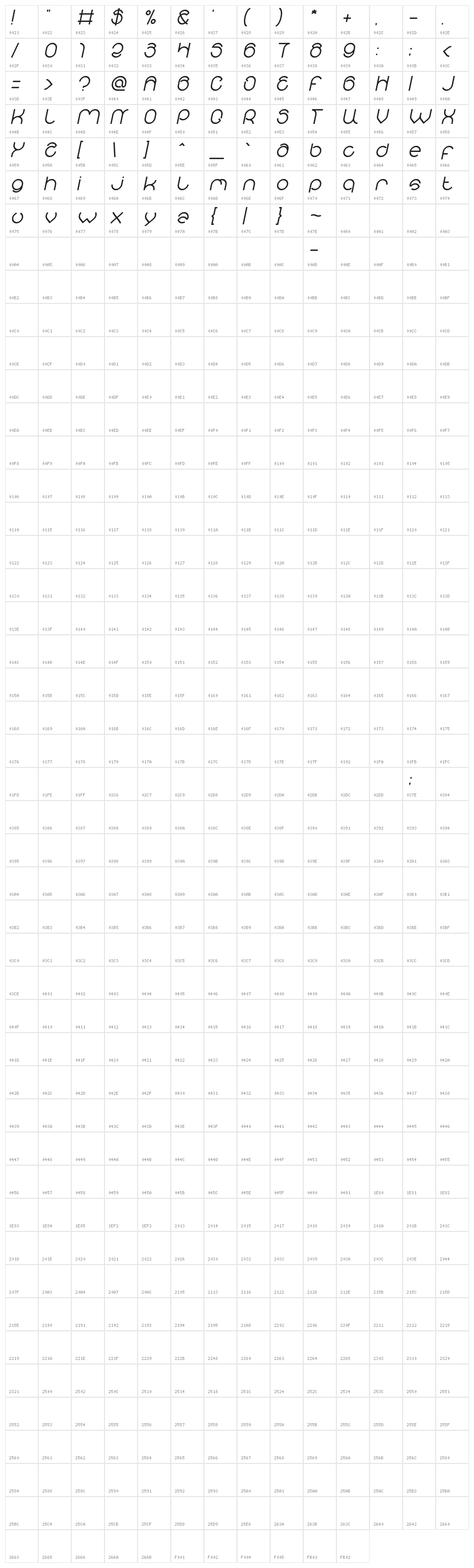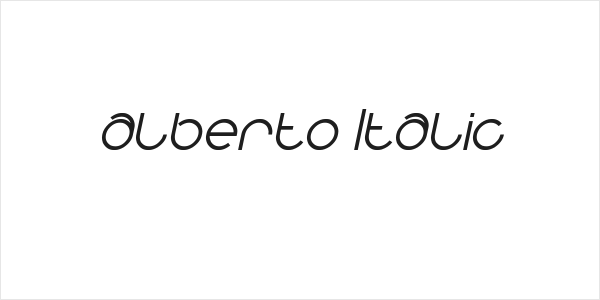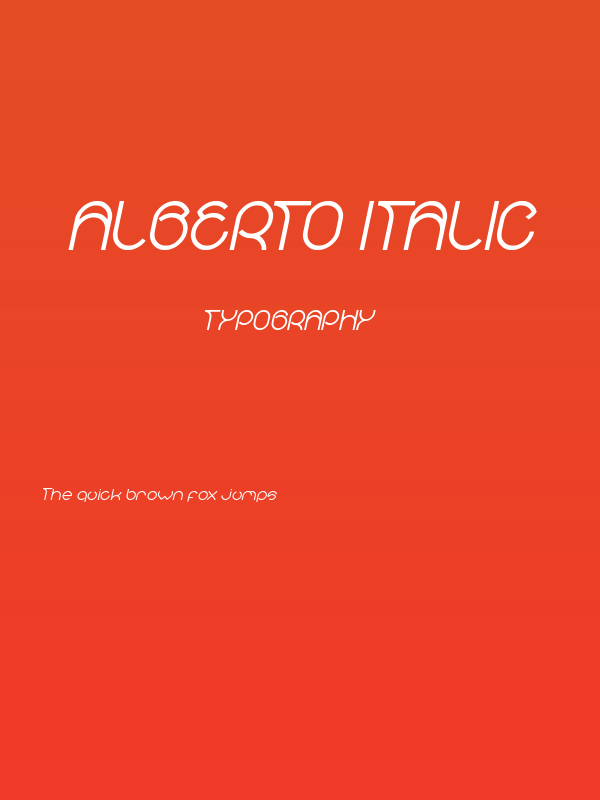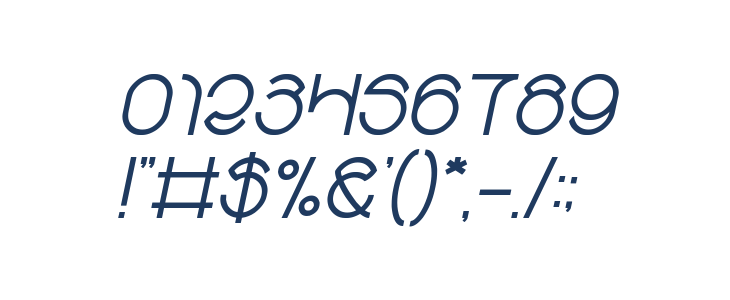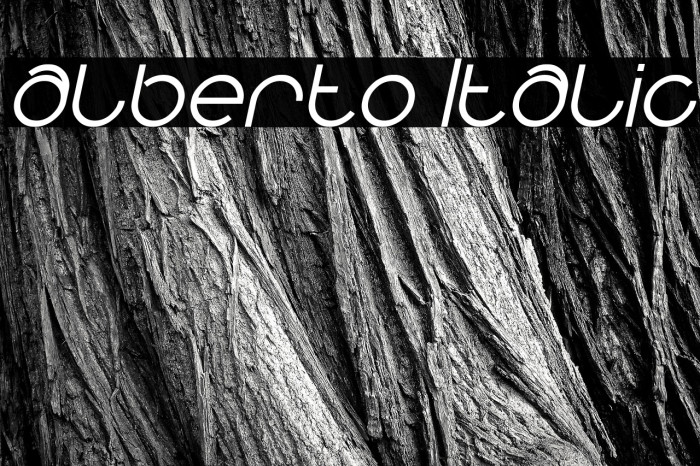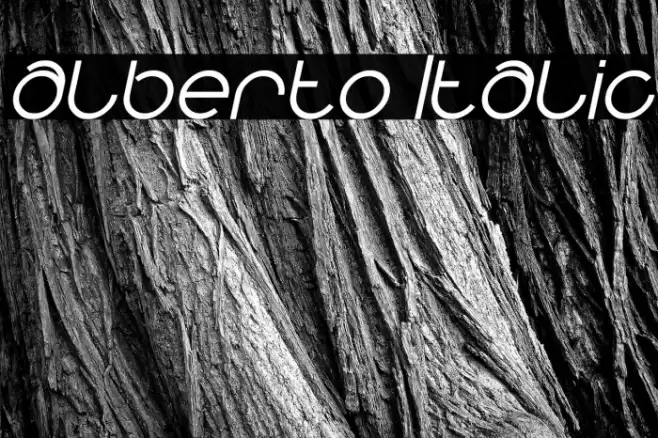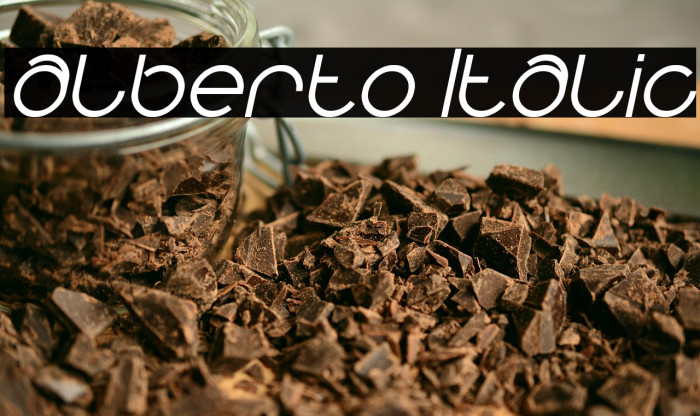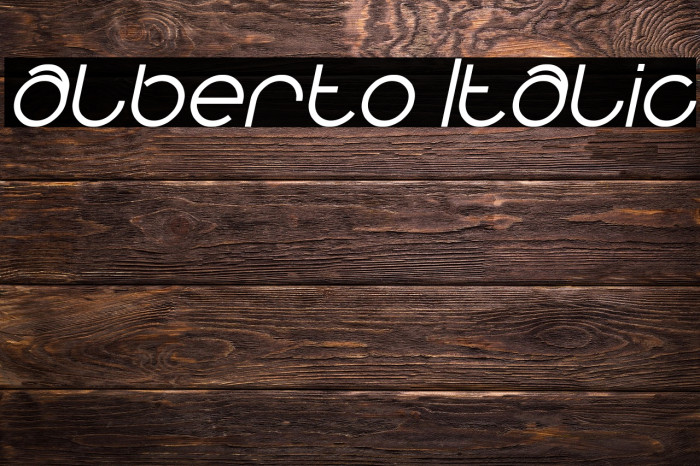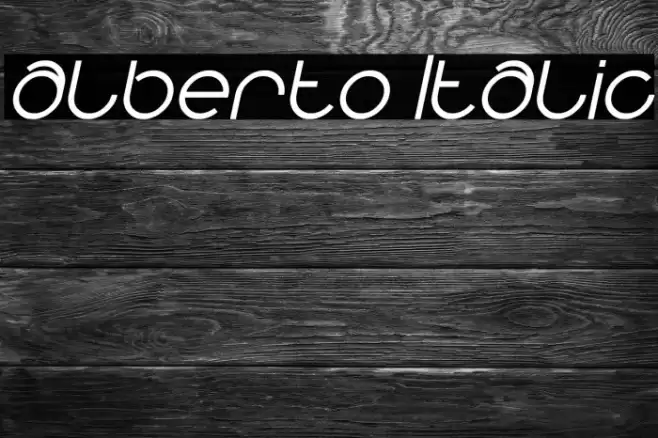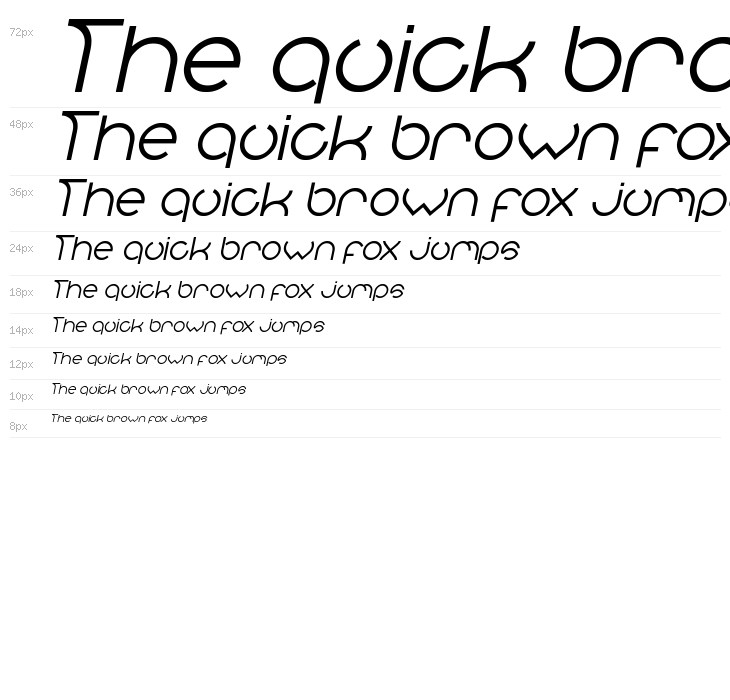
alberto Italic Font
This font features a sleek, modern design with a distinct italic slant, giving it a dynamic and forward-moving appearance. The characters are crafted with smooth, continuous curves and a consistent stroke width, which adds to its contemporary feel. The uppercase letters are bold and confident, while the lowercase letters maintain a harmonious balance with their slightly rounded forms. The numerals are clear and legible, matching the overall style of the alphabet. Special characters are thoughtfully integrated, ensuring versatility in various design contexts. The font's clean lines and elegant curves make it suitable for a wide range of applications.